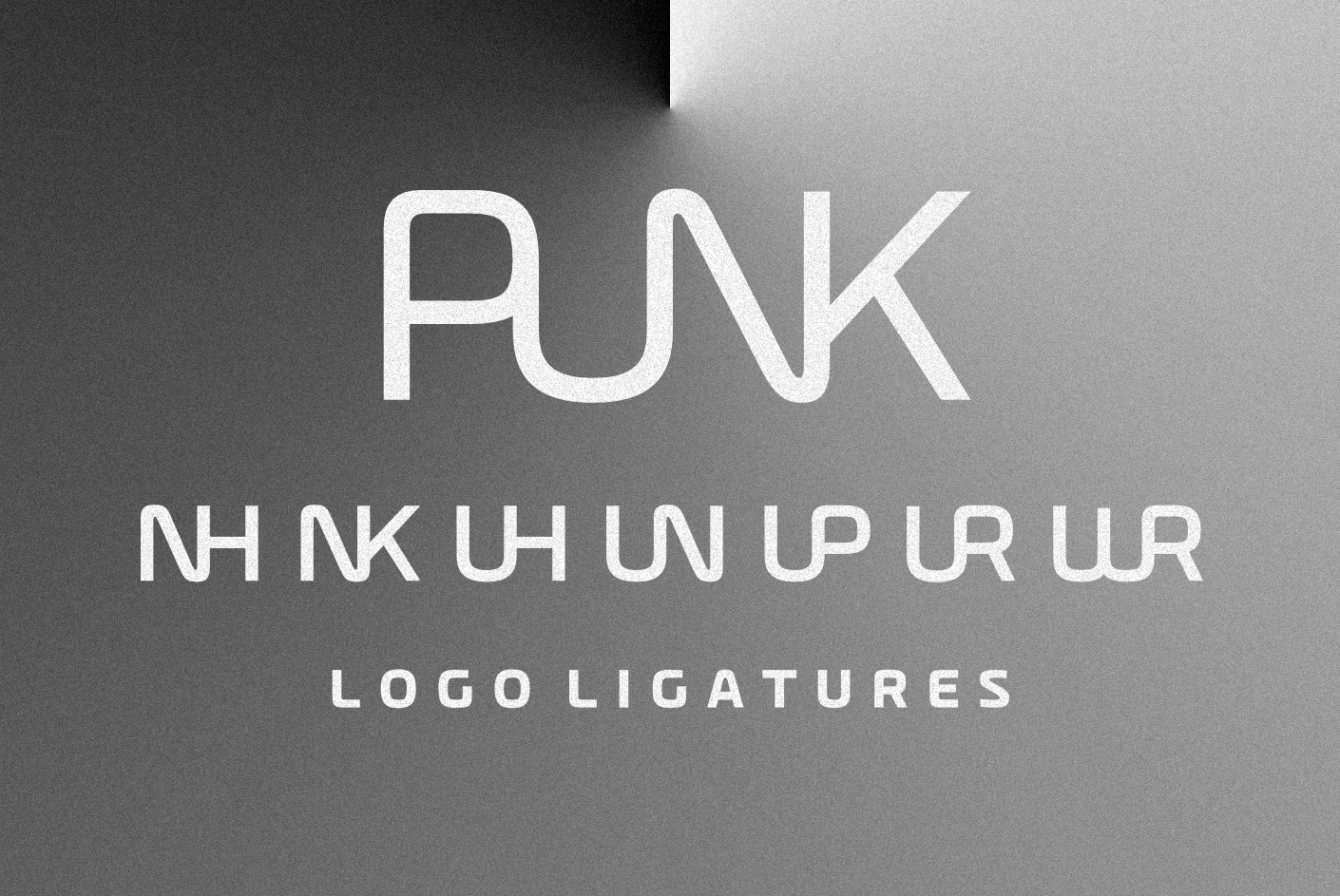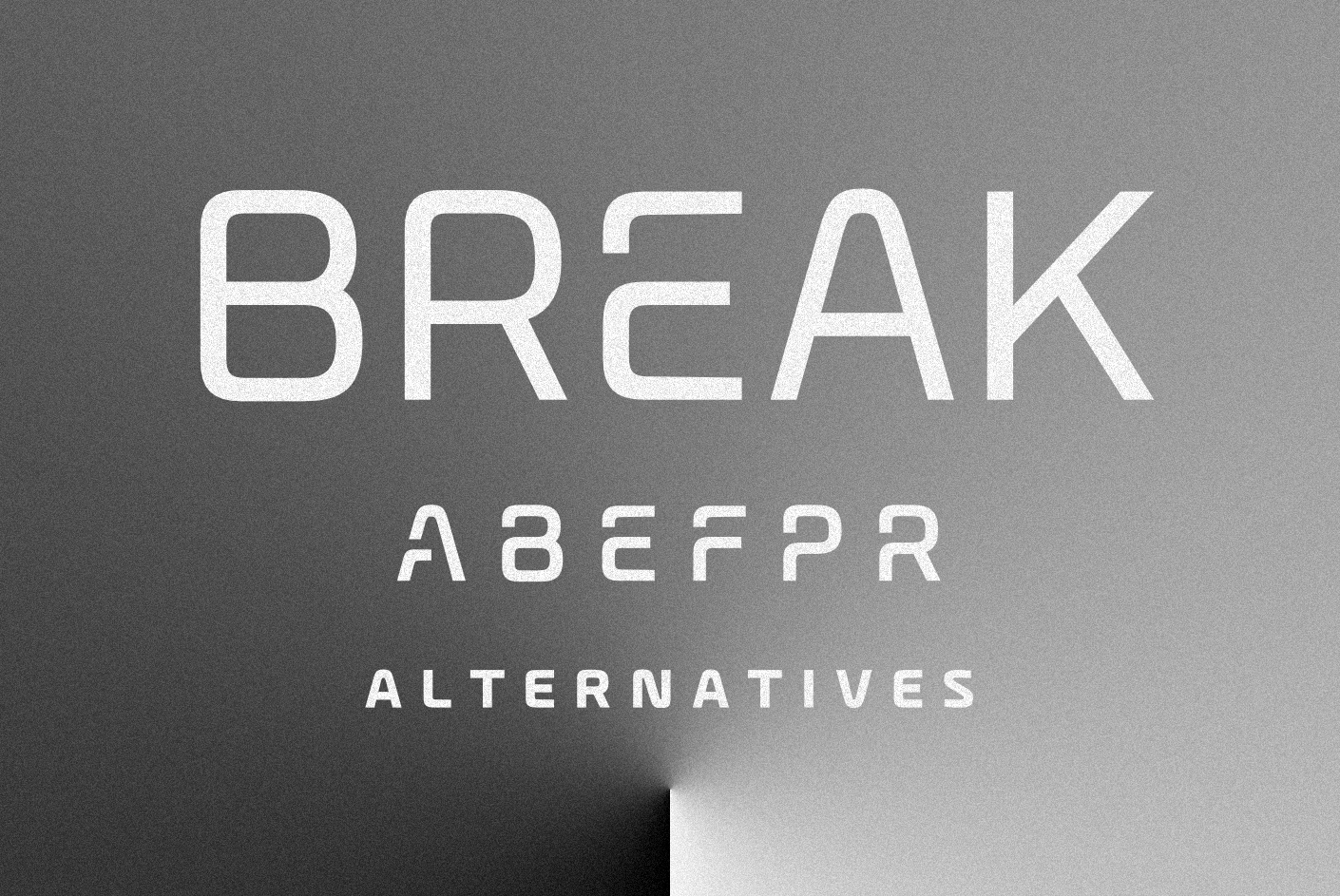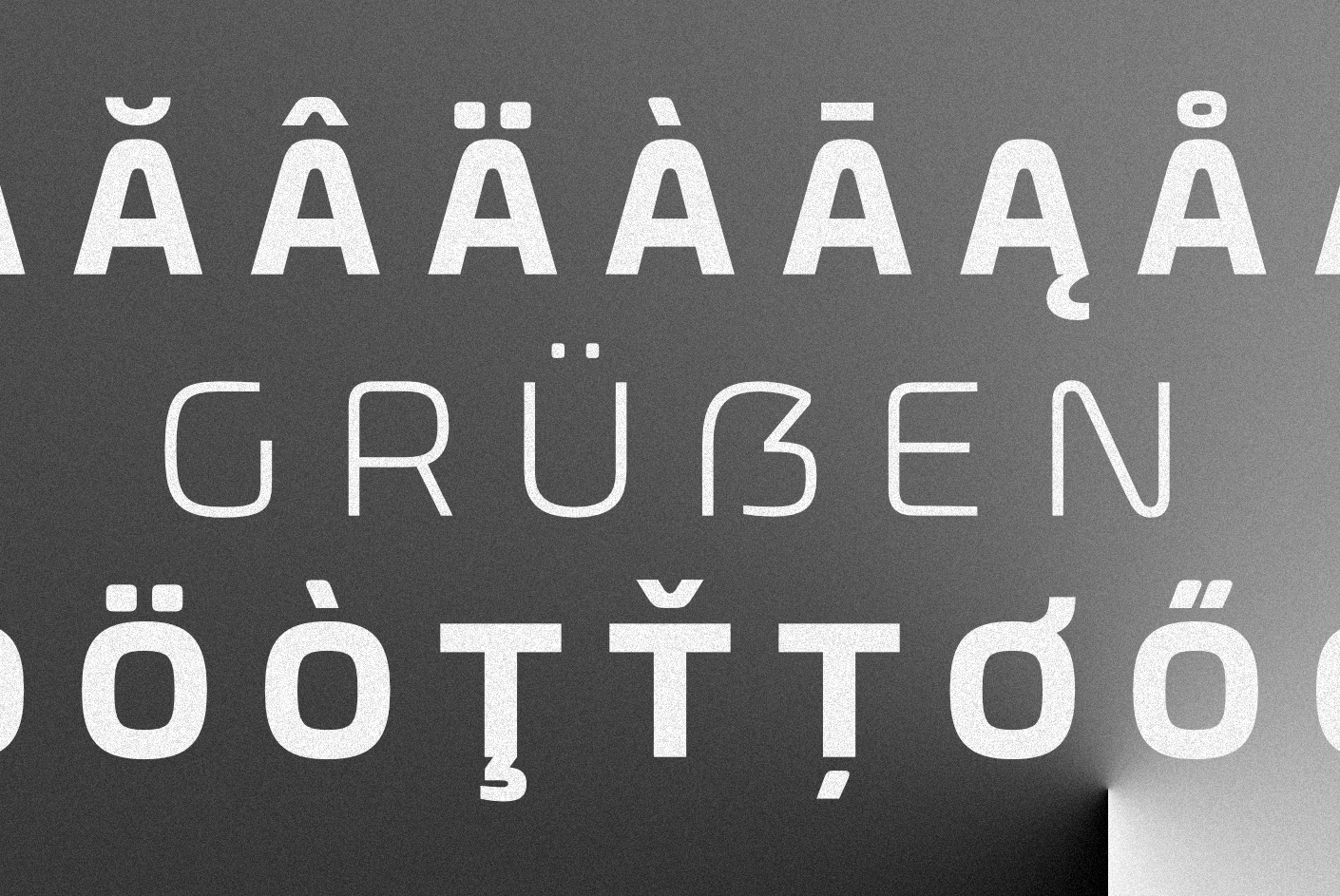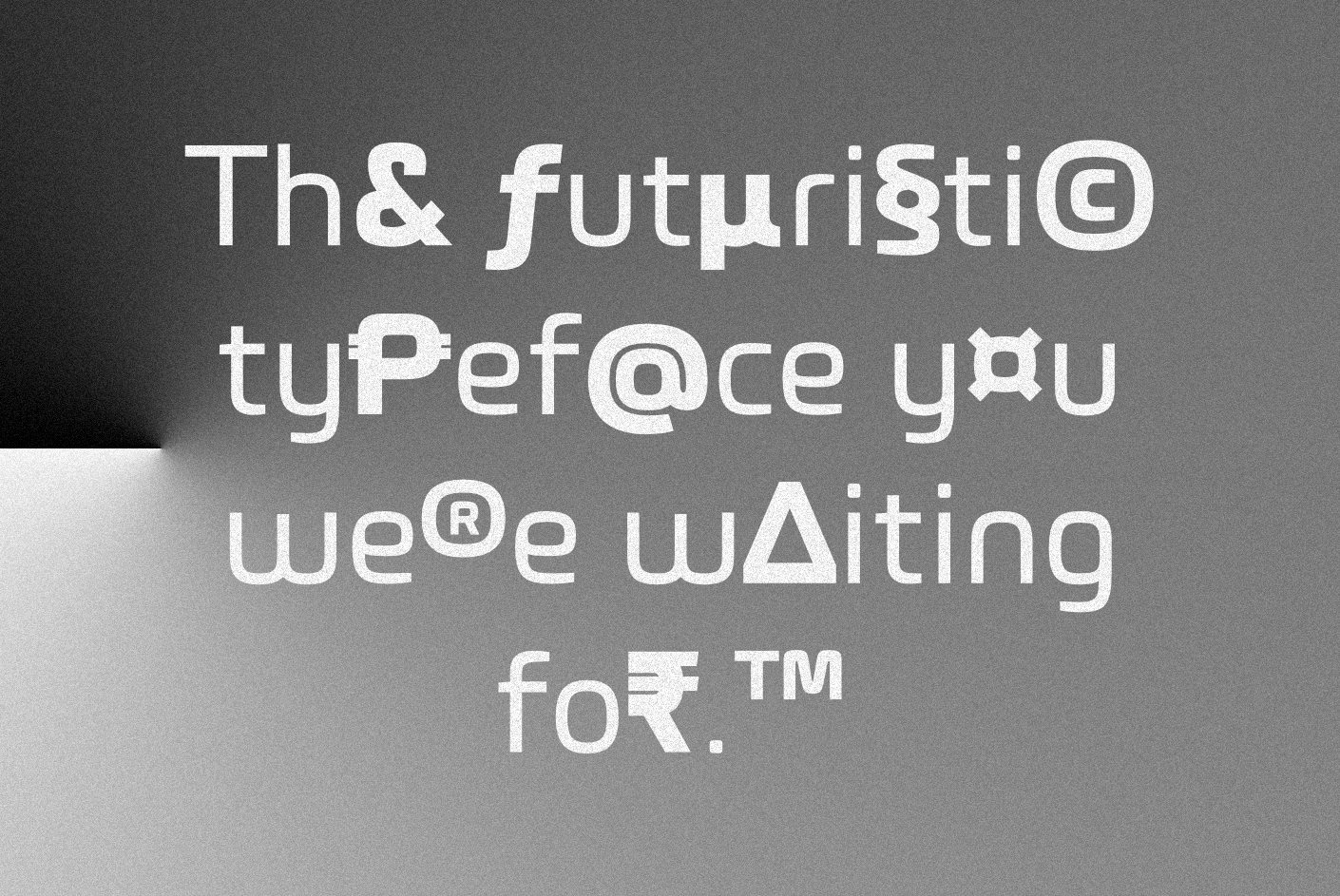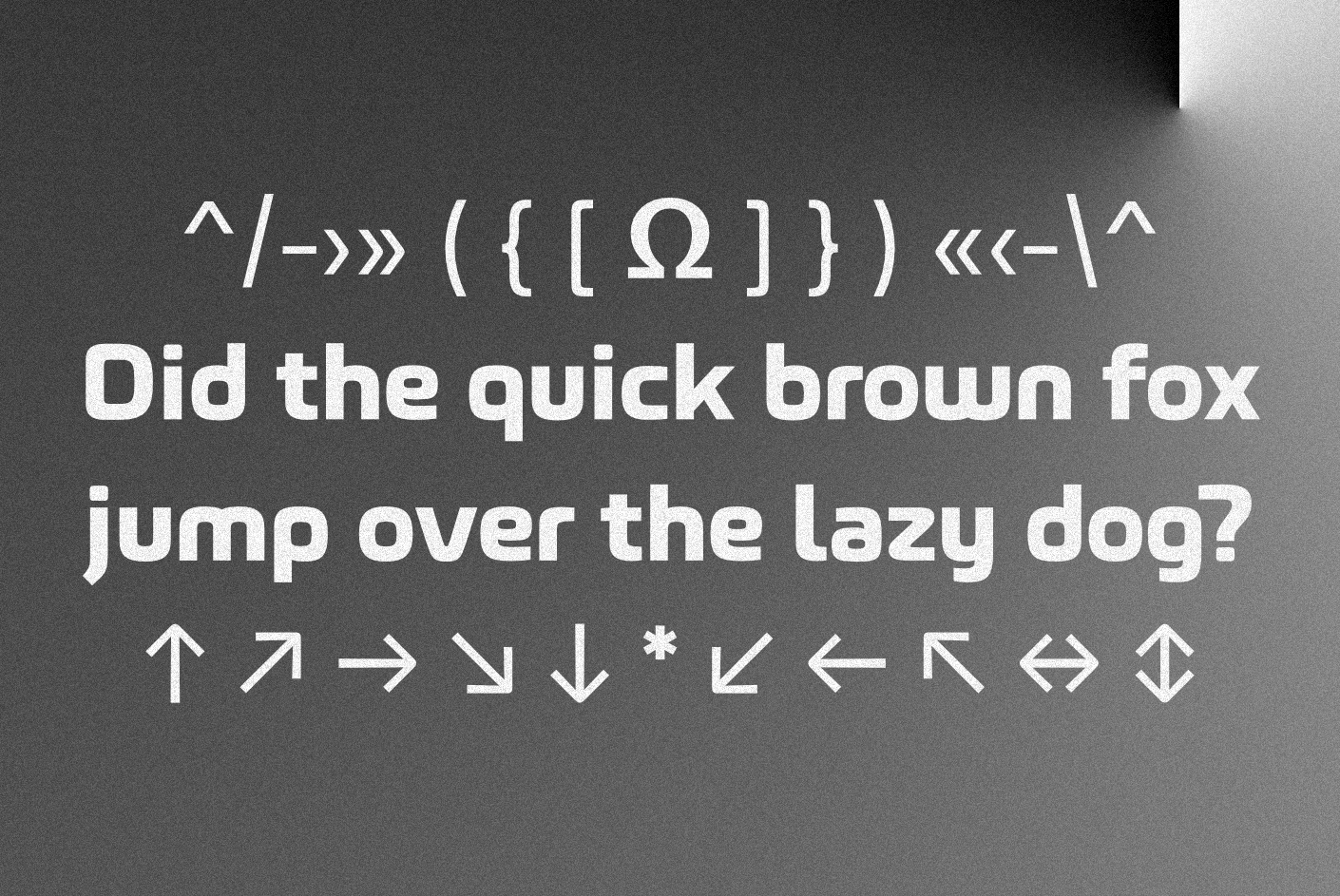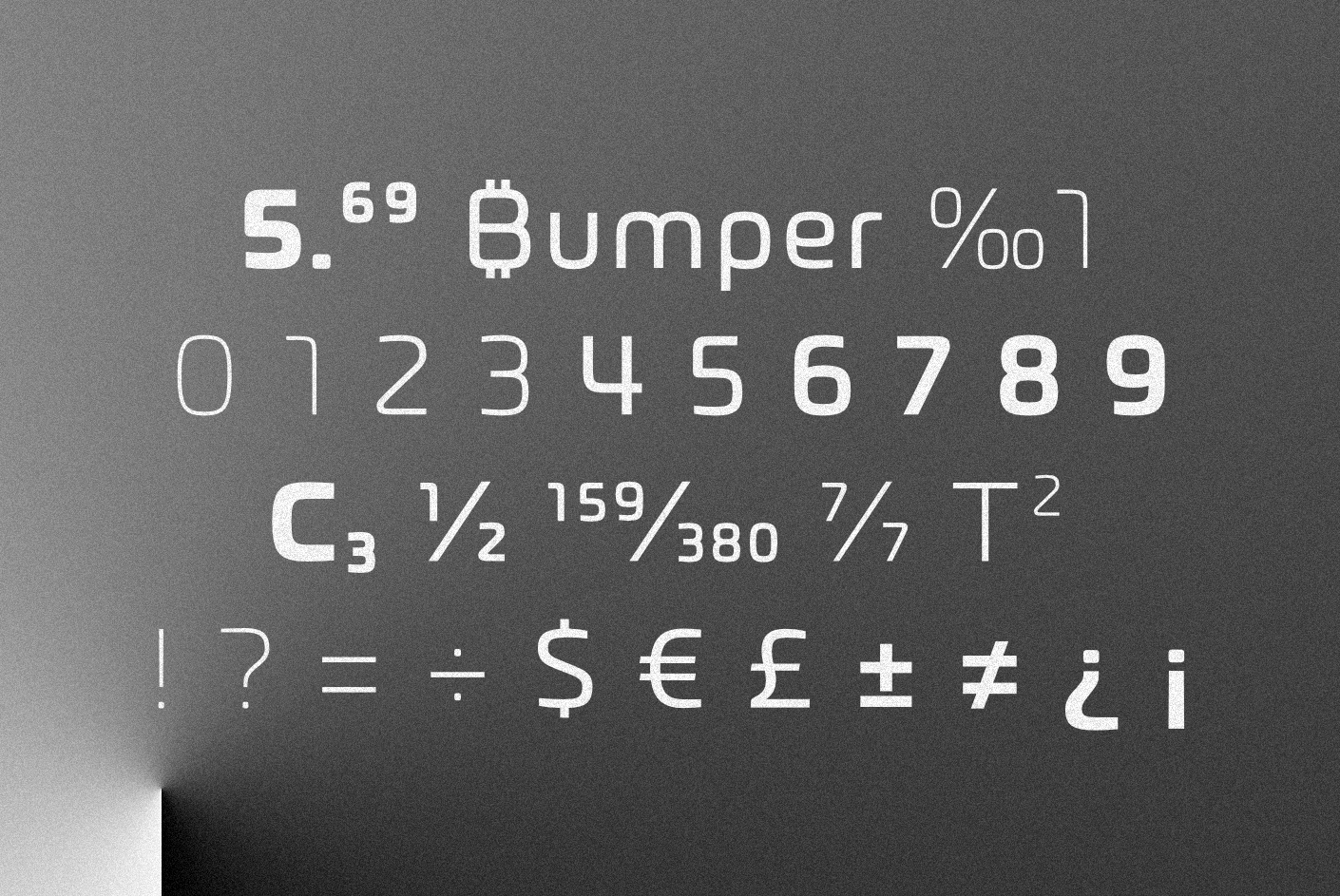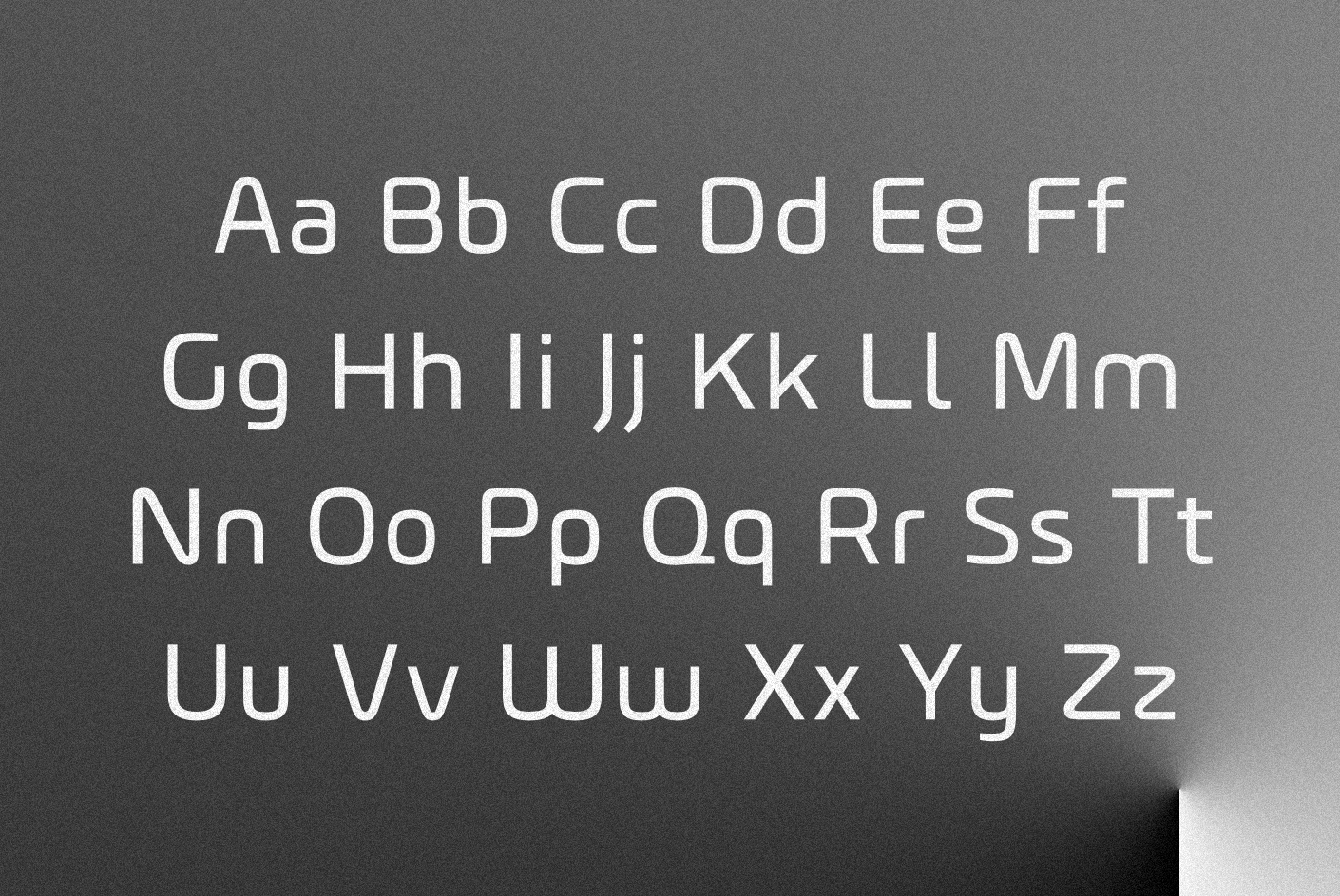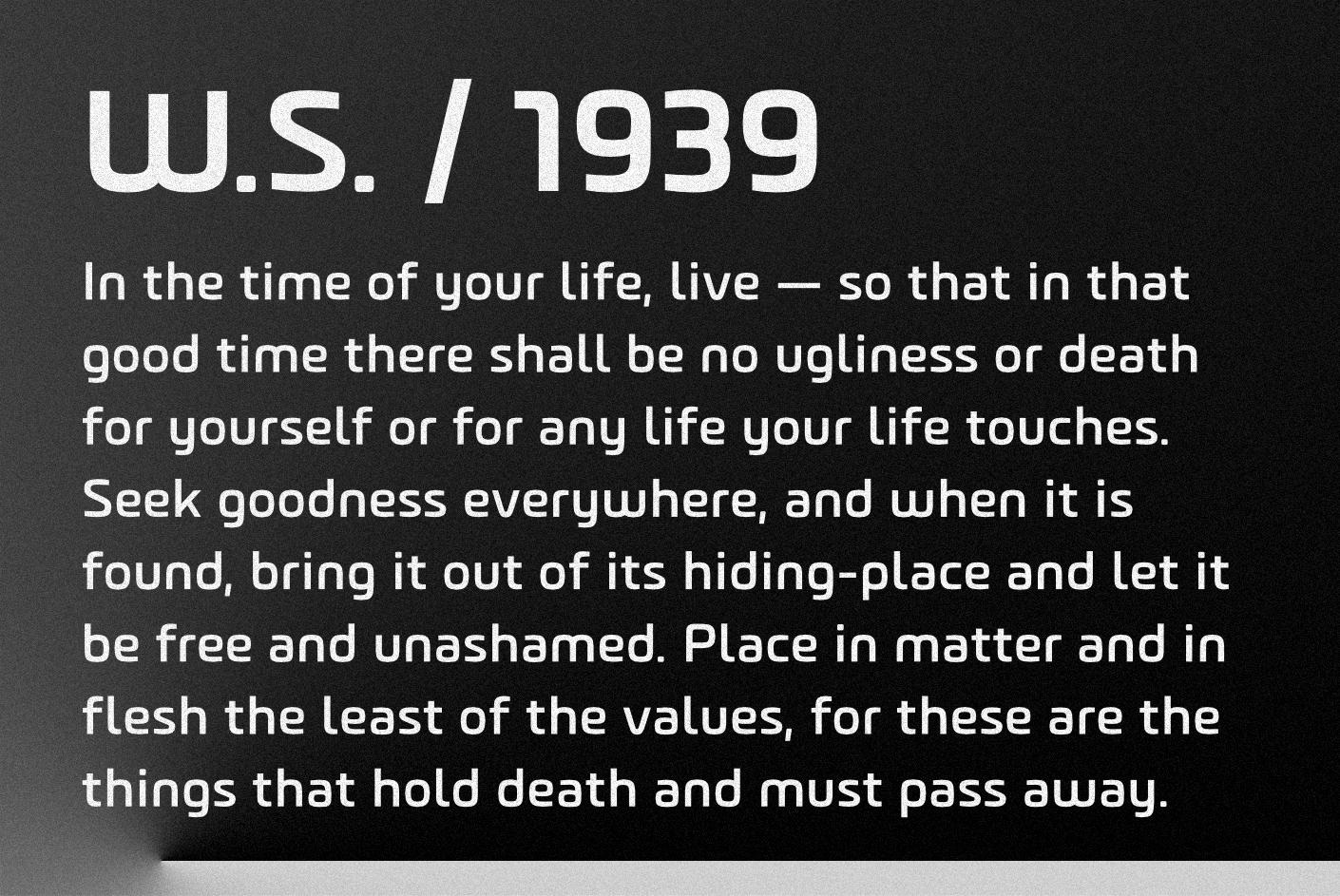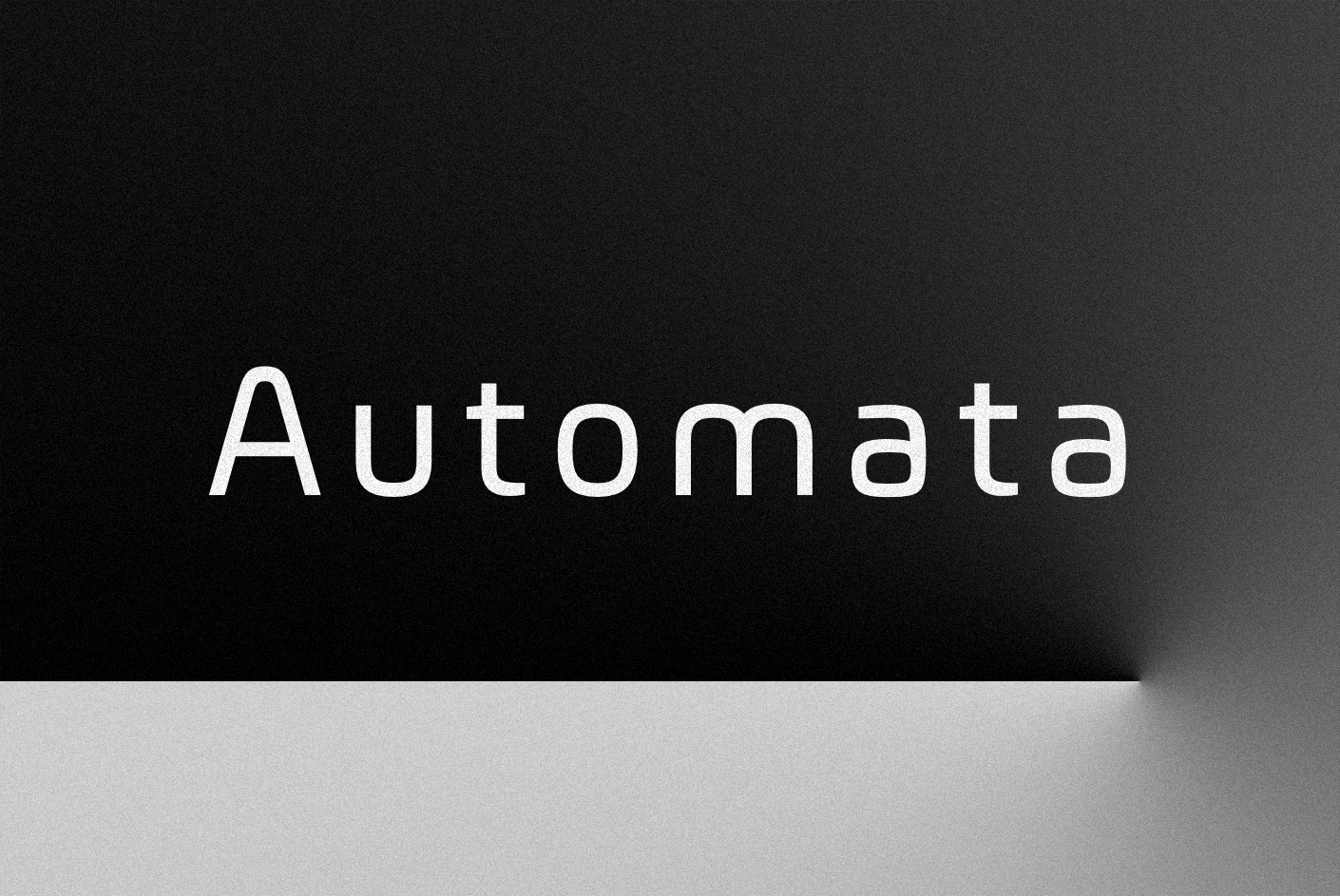
Automata
About Automata
With a retro-futuristic look that remains highly legible, Automata features smooth, clean lines and a geometric aesthetic that conveys a sense of technology and innovation. In addition to its design characteristics, Automata offers customizable options…